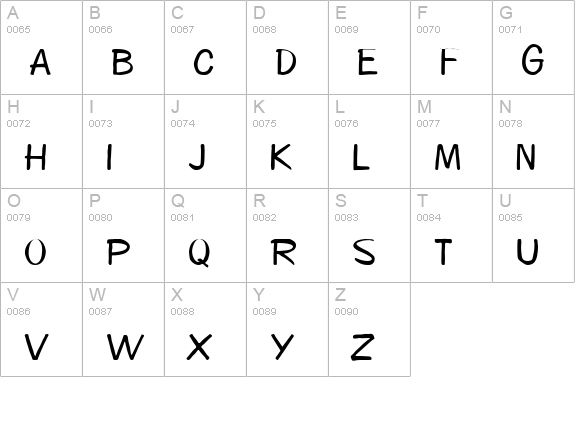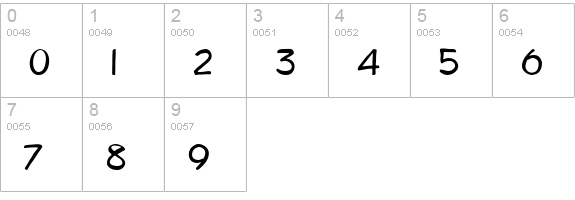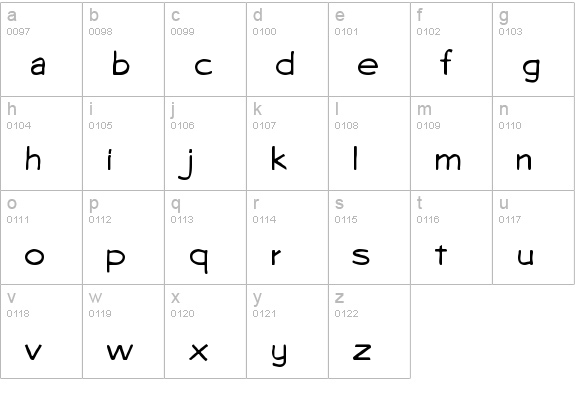
Diego1 Normal is the standard, neutral variant in the Diego1 typeface family \xE2\x80\x94 well suited to general body text, paragraphs, and standard typographic work.
Diego1 Normal font is a versatile and modern typeface that exudes elegance and sophistication. Its clean lines and balanced proportions make it perfect for a wide range of design projects, from branding to editorial design. The font is available in a normal weight, making it suitable for both headings and body text. One of the best features of Diego1 Normal font is that it is free to download at FontsMarket.com. This means you can easily access this high-quality font without any cost, making it a valuable addition to your font library. Whether you are a professional designer or a hobbyist, Diego1 Normal font offers a sleek and contemporary look that will elevate your designs.